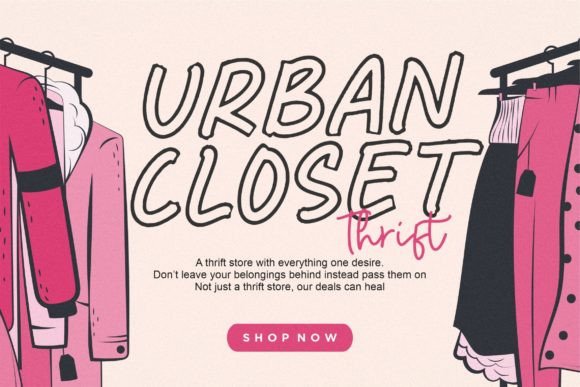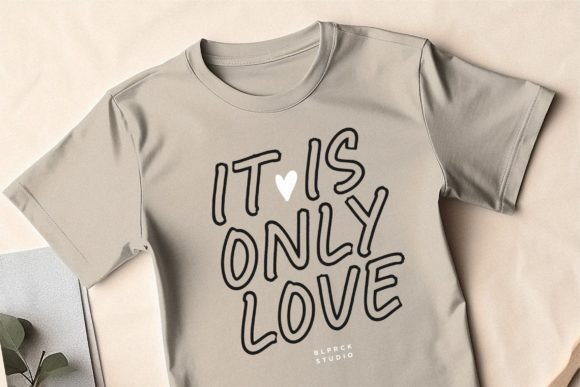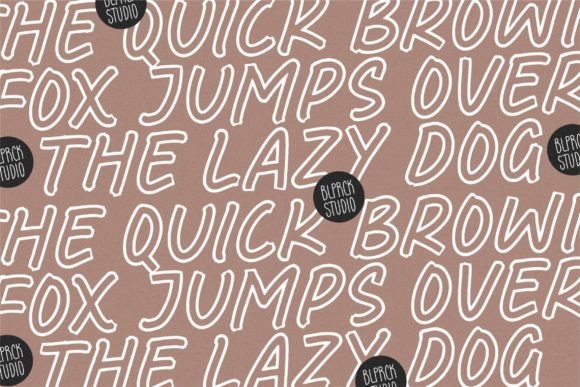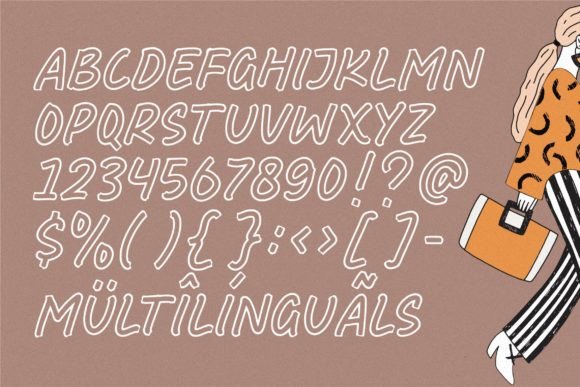
Introduction to Fashion Country Font
Fashion Country is a outline style handbrushed font, meticulously crafted to deliver a distinct and captivating visual impact.
The unique characteristics of this font make it ideal for a wide range of applications Whether itโs crafting eye-catching logos, designing captivating posters, or composing inspiring quotes, our font seamlessly integrates into your creative endeavors, leaving a lasting impression.
Key Features of Fashion Country Font
Why Choose Fashion Country Font?
Fashion Country Font offers exceptional quality and versatility, making it a valuable addition to your design toolkit. Whether you’re creating for personal projects or commercial use, Fashion Country Font delivers professional results.